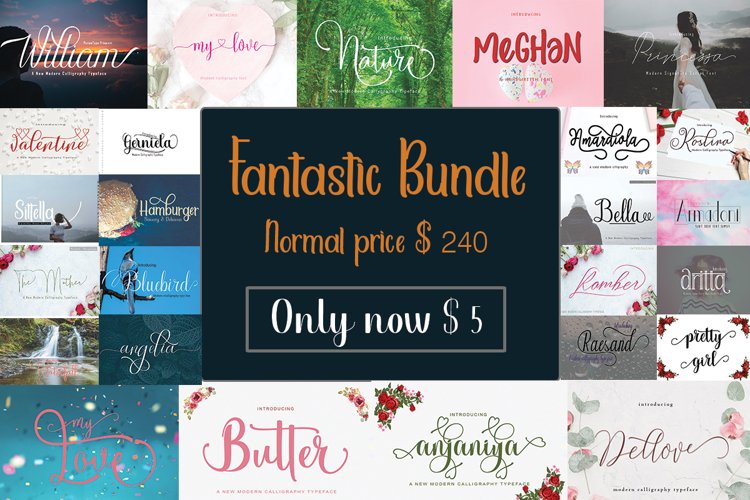
FANTASTIC BUNDLE
Amardoni 1
bluebird
Amardoni 2
Natalia
Amardoni
Shintia
sittella
Heppy new year
Amardiola
The Unic Font
Meghan
Haura
Aritta
Princessa
Dellove
Raesand
Stefand
Hand Fast
William
SittellaScript
Ramber
Gerniela
The Mother
Roslina
Bella
Margareth
MargarethItalic
Butter
Nature
Angelia
valentine
Anjaniya
Amardoni 3
INTRODUCING FANTASTIC BUNDLE
Year-End Special Bundles, 31 font collections in one package. This is your chance to get a very cheap font for only $ 5. This package includes font duo, family font, serif and scrip.
This collection includes a variety of font styles. It includes several best-selling fonts, with hundreds of glyphs, including alternatives, ligature, swash, separate swash, contextual alternatives and international language support. which can be accessed using smart OpenType programs such as Adobe Illustrator, Adobe In Design, CorelDraw X6-X7, Microsoft Word 2010 or later versions.
All fonts is perfect for weddings invitations, social media promotion, titles, signatures, logos, t-shirts, letterhead, signboards, labels, bulletins, branding, headings, logos, blog, letterhead, merchandise, signage, news, posters, badges, etc.